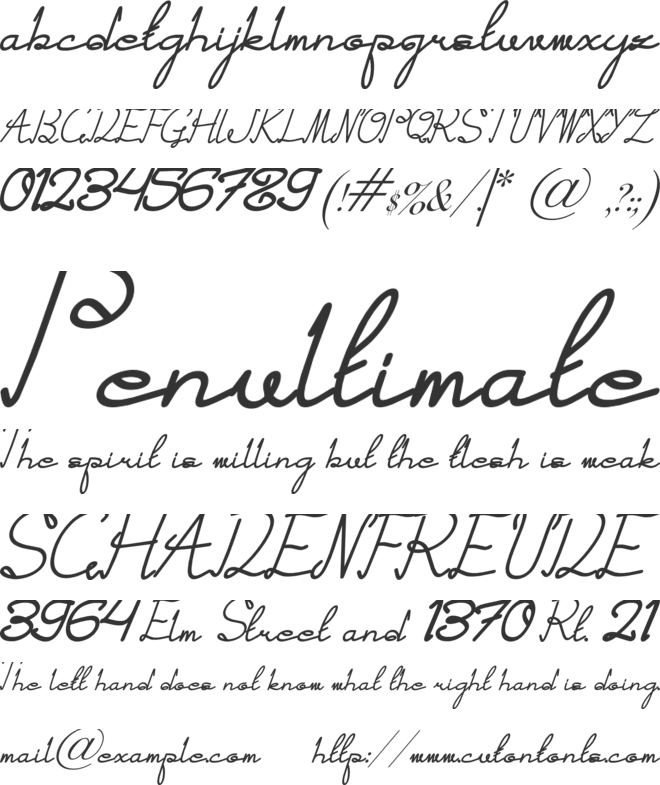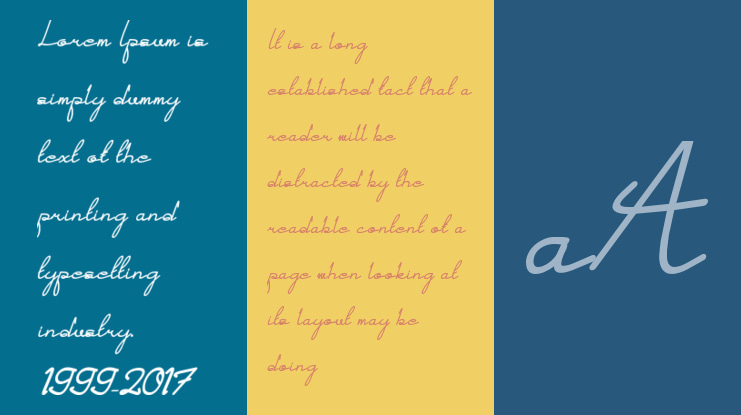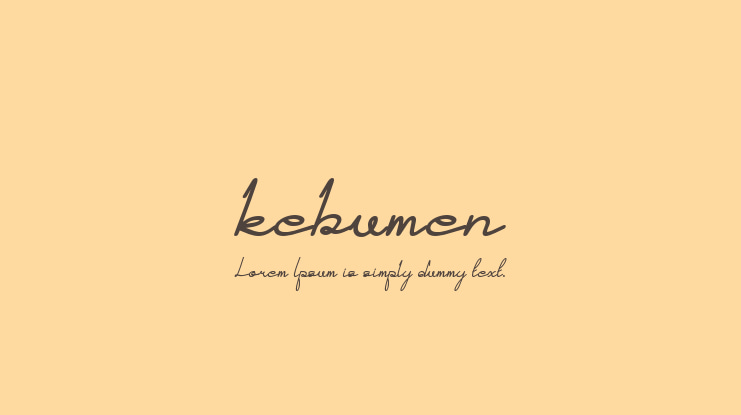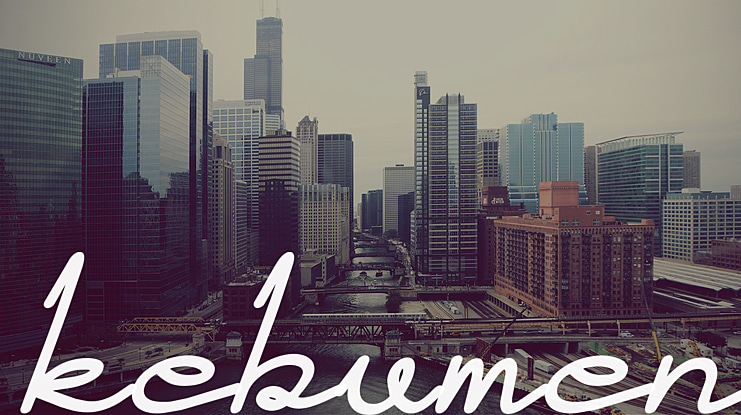
kebumen Font
Kebumen font is an elegant and beautiful font. This font is made specifically for wedding invitations besides that, it can also be used for t-shirt designs and quotes